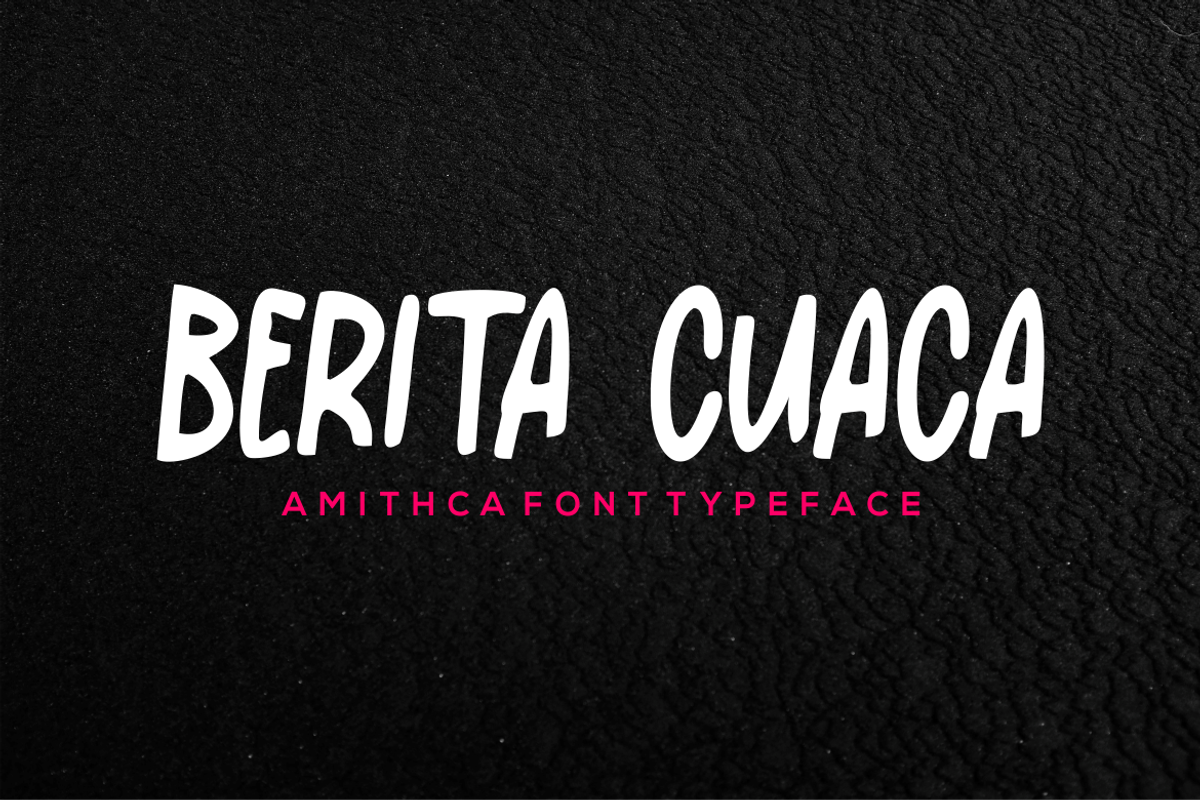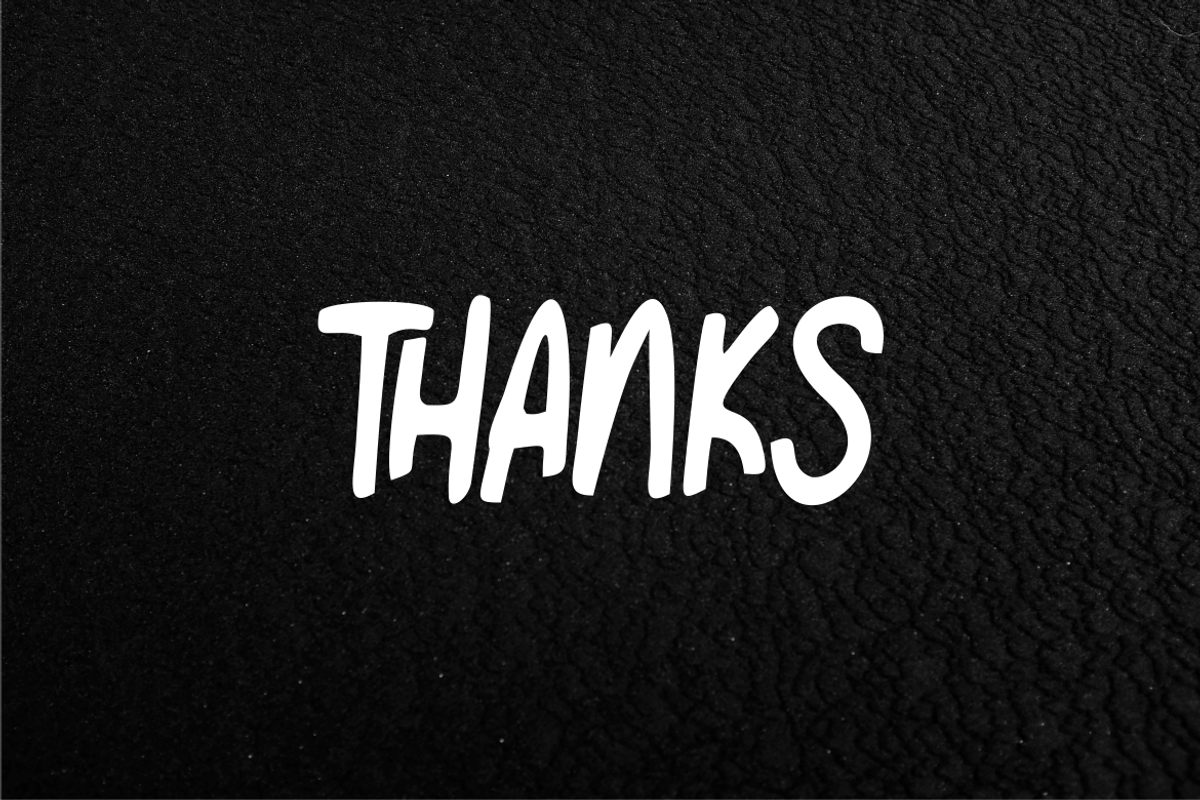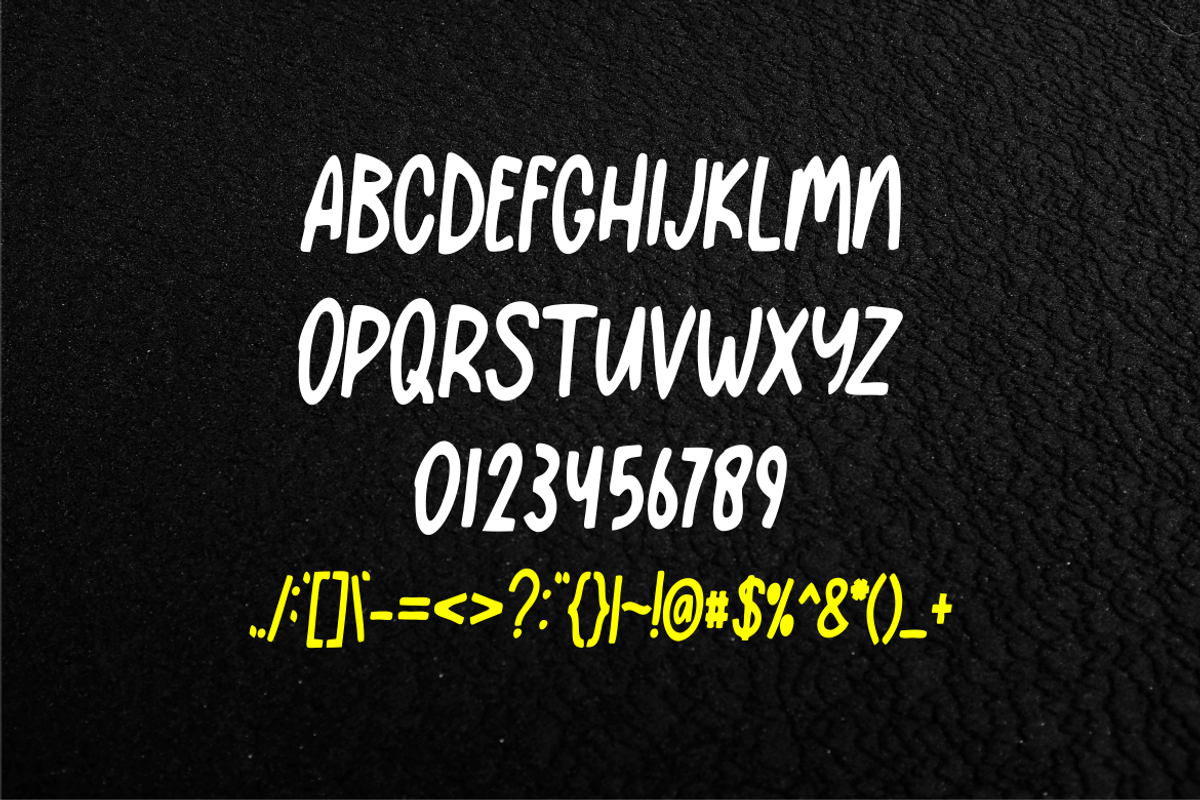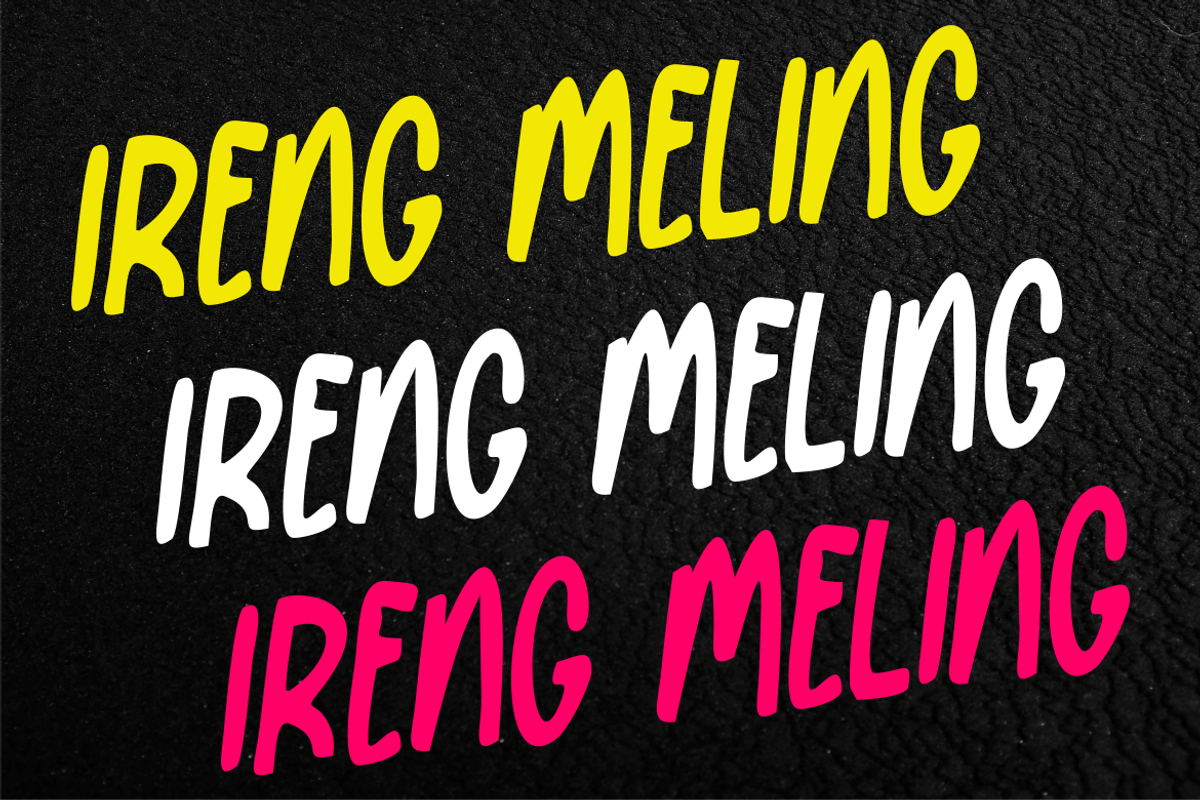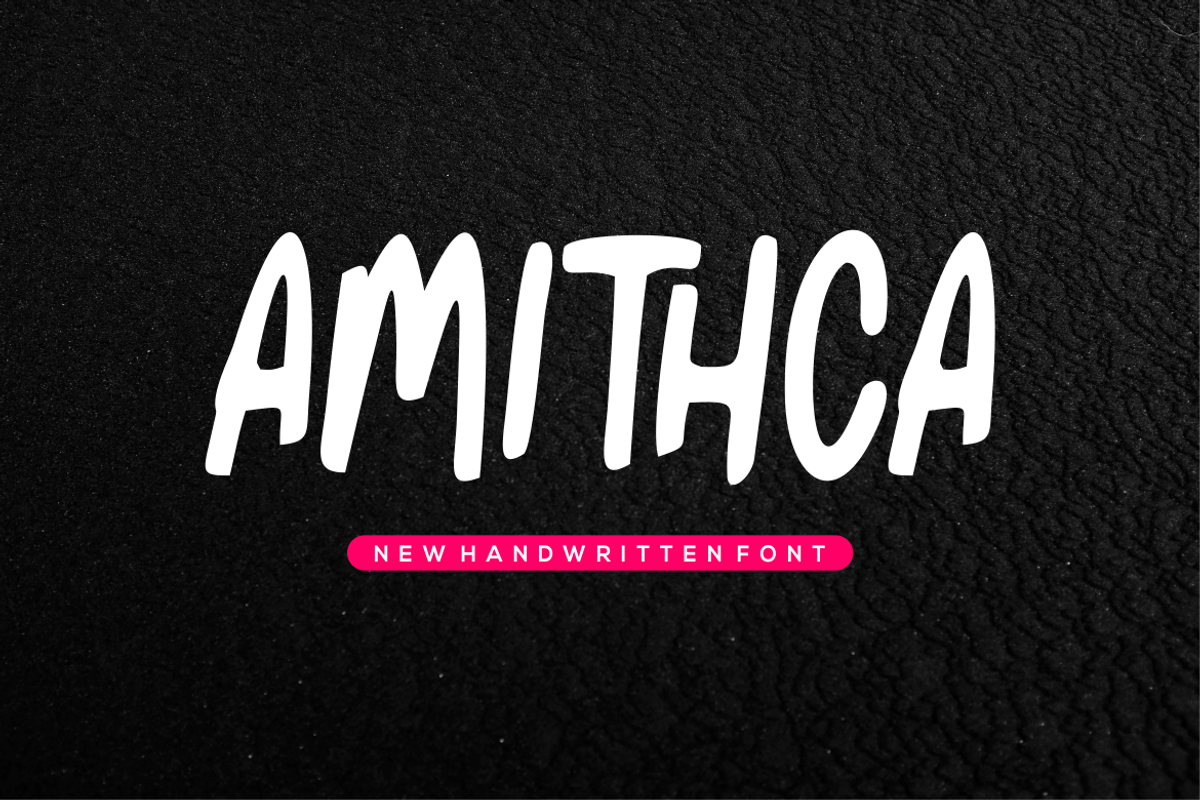
Amithca Font
Introducing our new product Amithca Font - Modern Font
Amithca Font- Modern Font is a bold and authentic display font. The font is suitable for any branding project like logo, t-shirt printing, esport, and many more. outstanding in a wide range of contexts.